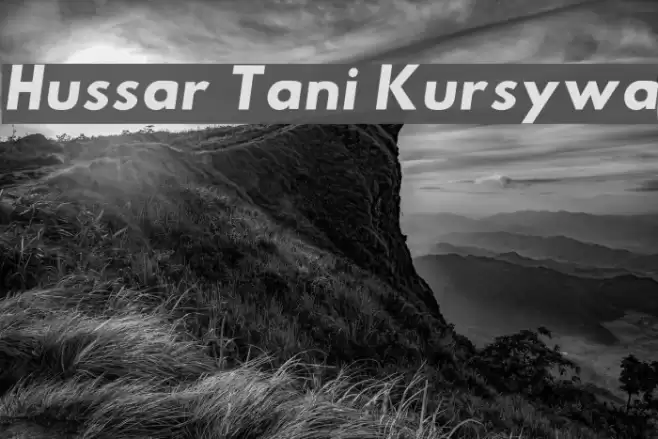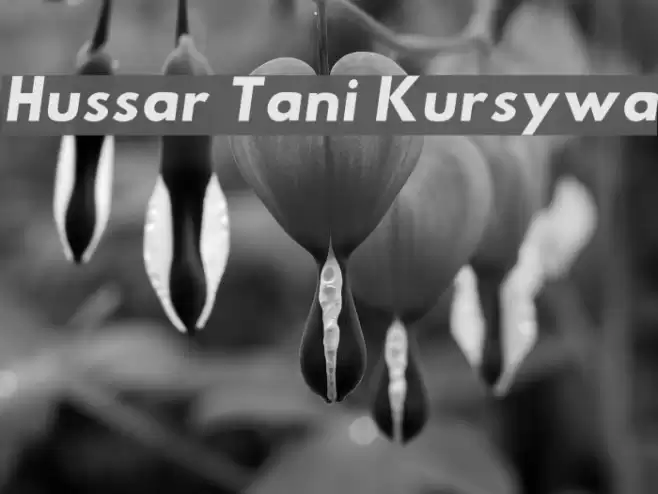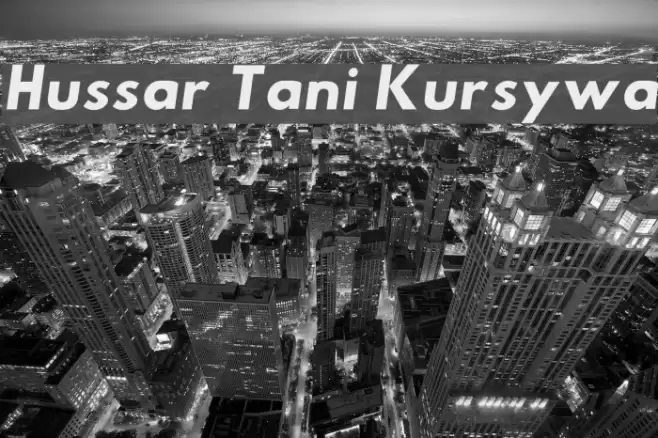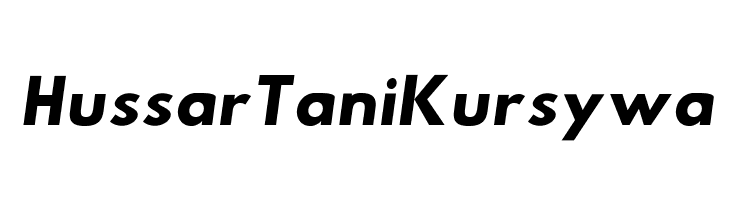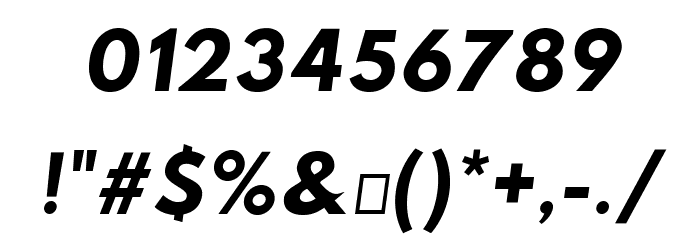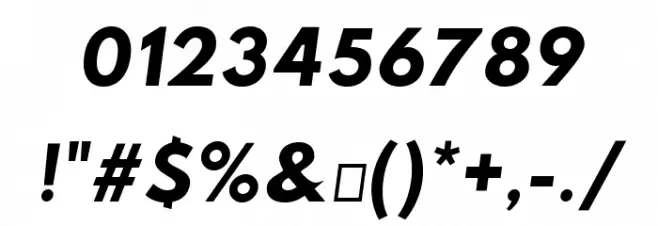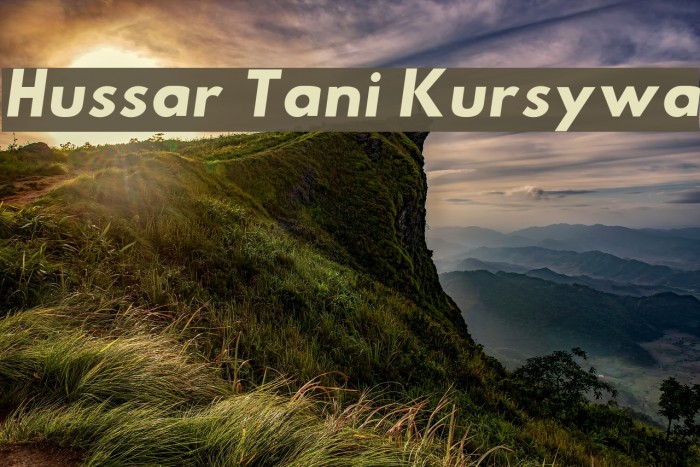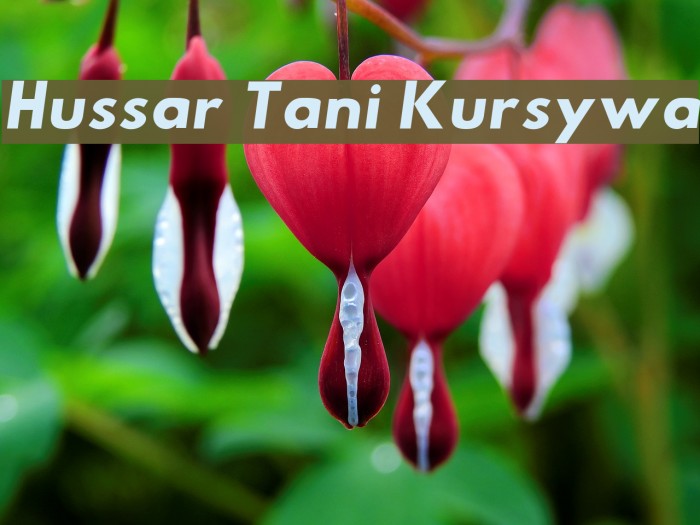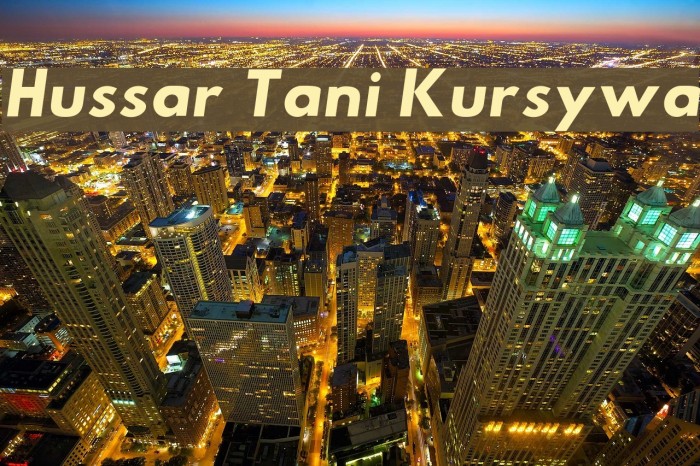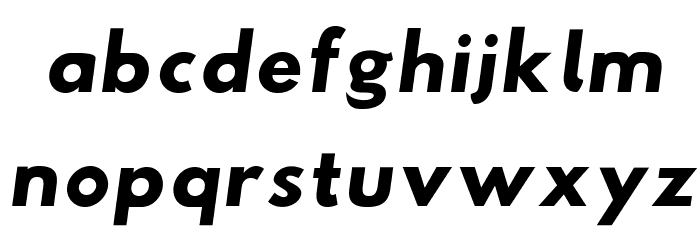
Hussar Tani Kursywa Font
Hussar Tani Kursywa Description
This font features a bold and dynamic style with a slight slant, giving it an italicized appearance. The characters are well-defined with a modern aesthetic, showcasing clean lines and a strong presence. The uppercase letters are slightly wider than the lowercase, which maintains a consistent flow. The numerals are uniform in height, matching the cap height of the uppercase letters. Special characters are distinct and maintain the overall boldness of the font. This typeface is designed to stand out, making it suitable for impactful headlines and attention-grabbing text.
A bold, italicized font with a modern and dynamic style from Uncategorized fonts.
- Proposed Projects: Ideal for branding, advertising, poster design, and any project requiring a strong visual impact.